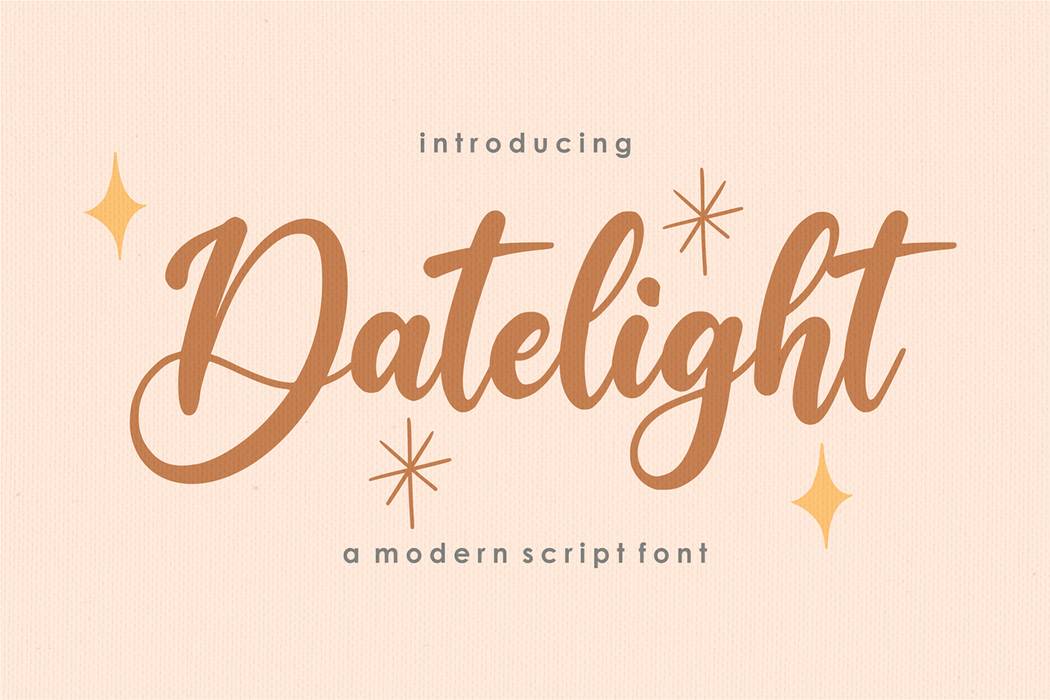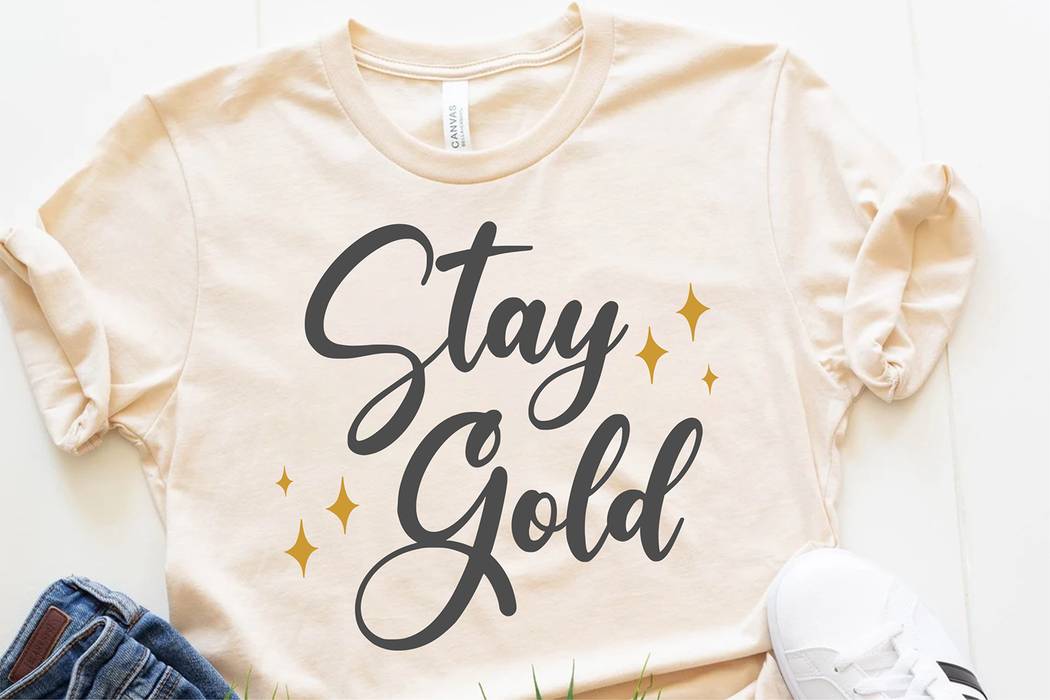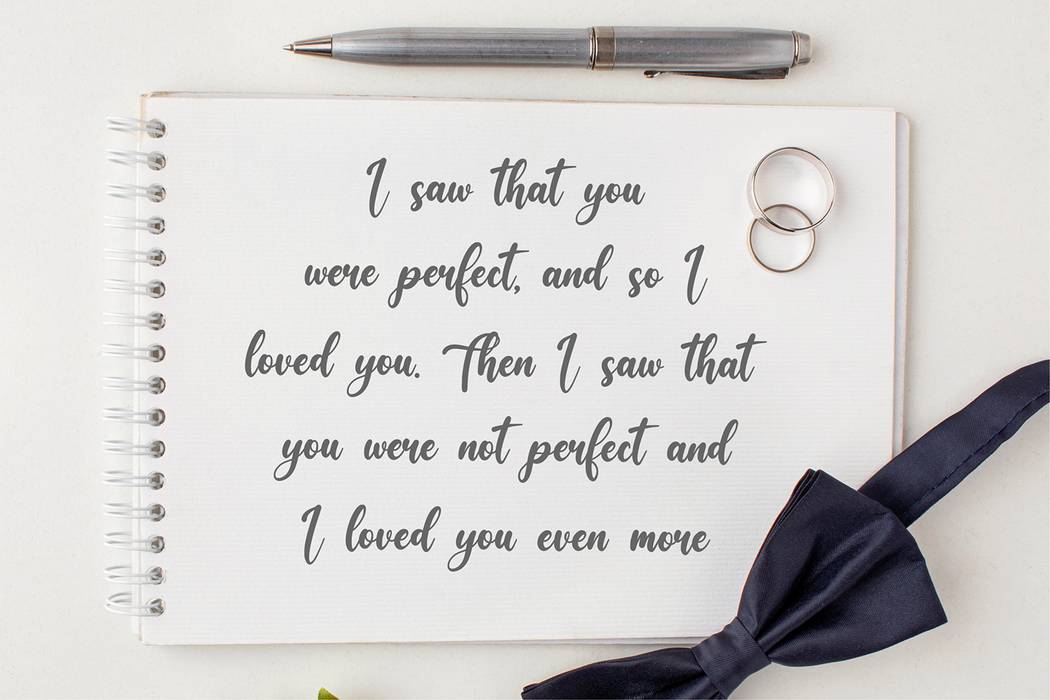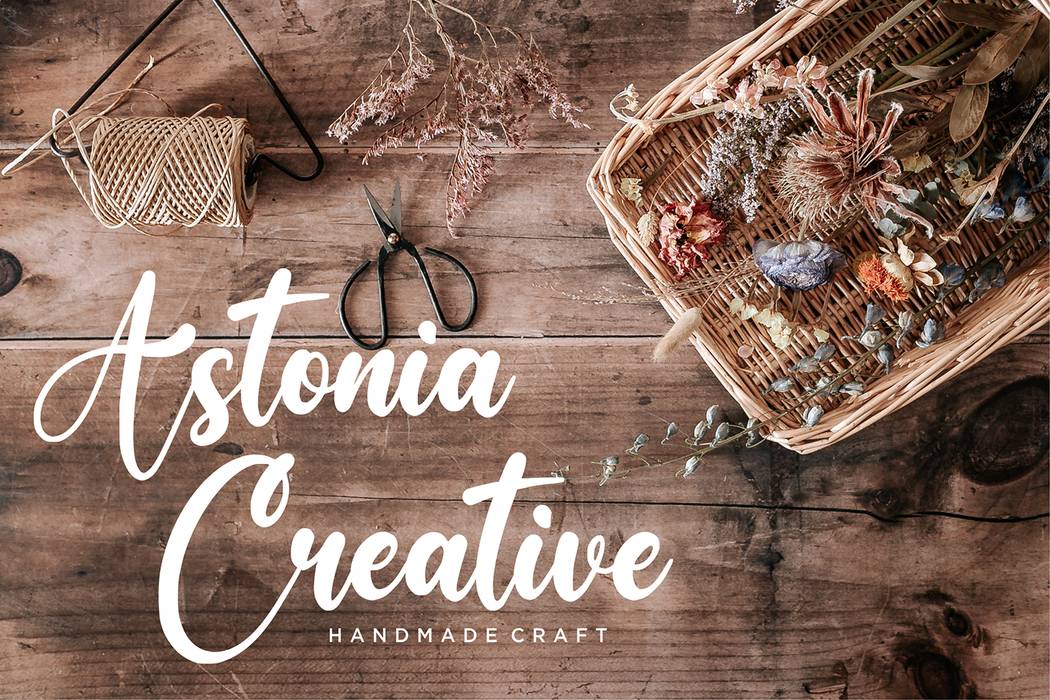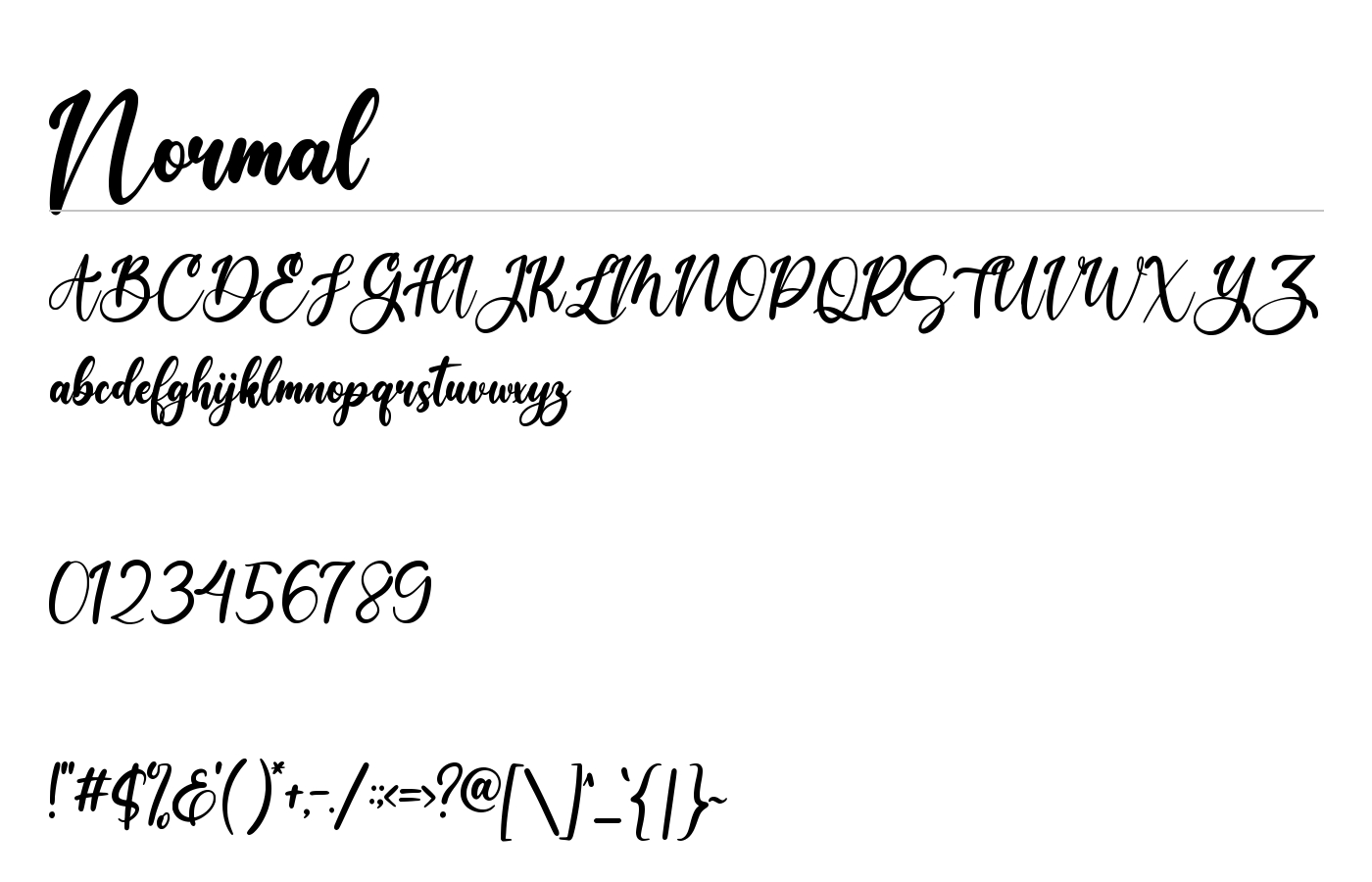
Datelight is a stylish script font that combines elegant, flowing curves with a modern handwritten feel. Its clear, medium-weight strokes and well-balanced letterforms make it perfect for adding a personal, yet polished touch to invitations, branding, and packaging. This font works beautifully in designs that seek a warm, sophisticated vibe with a contemporary twist.
Datelight Font